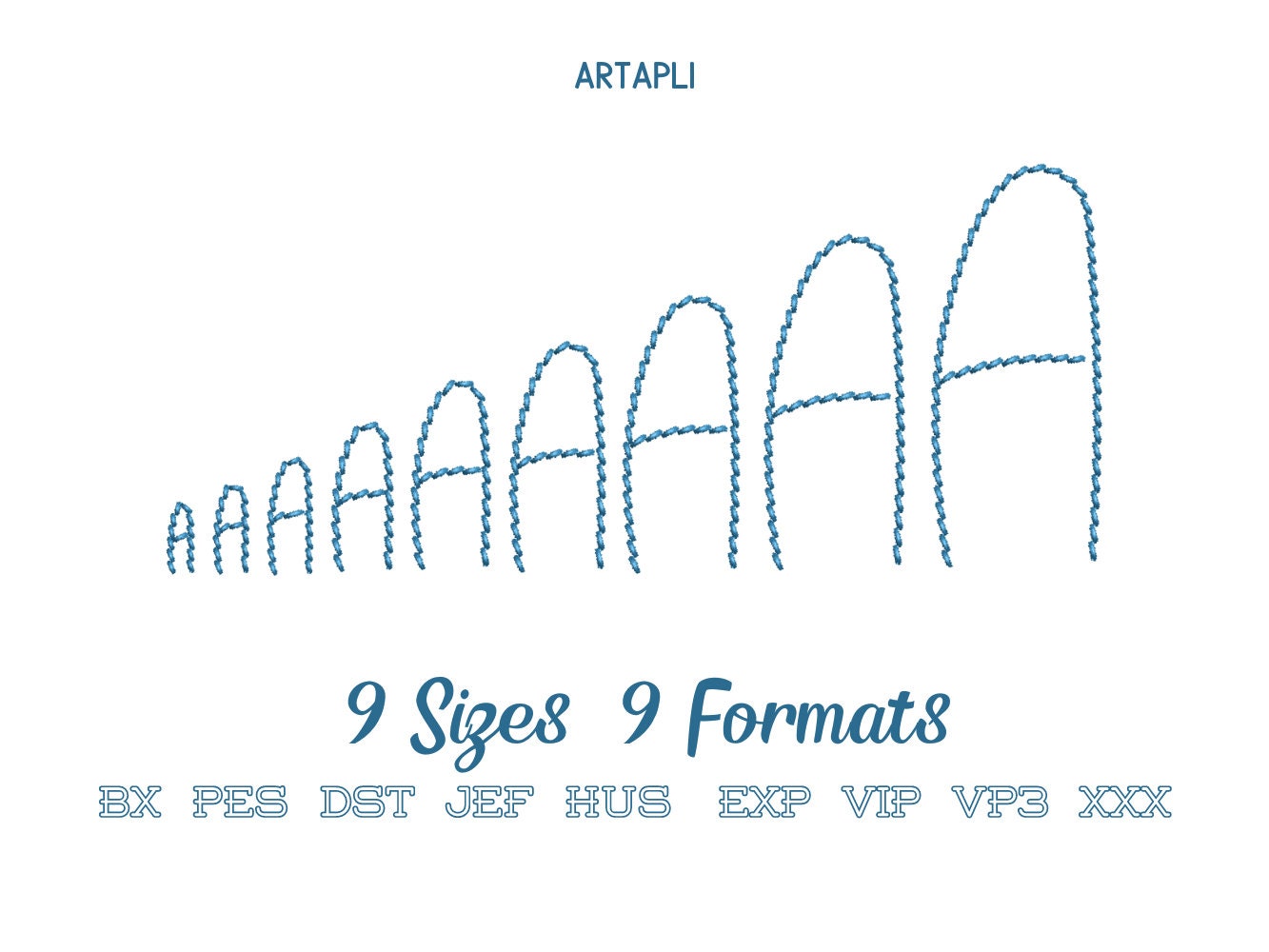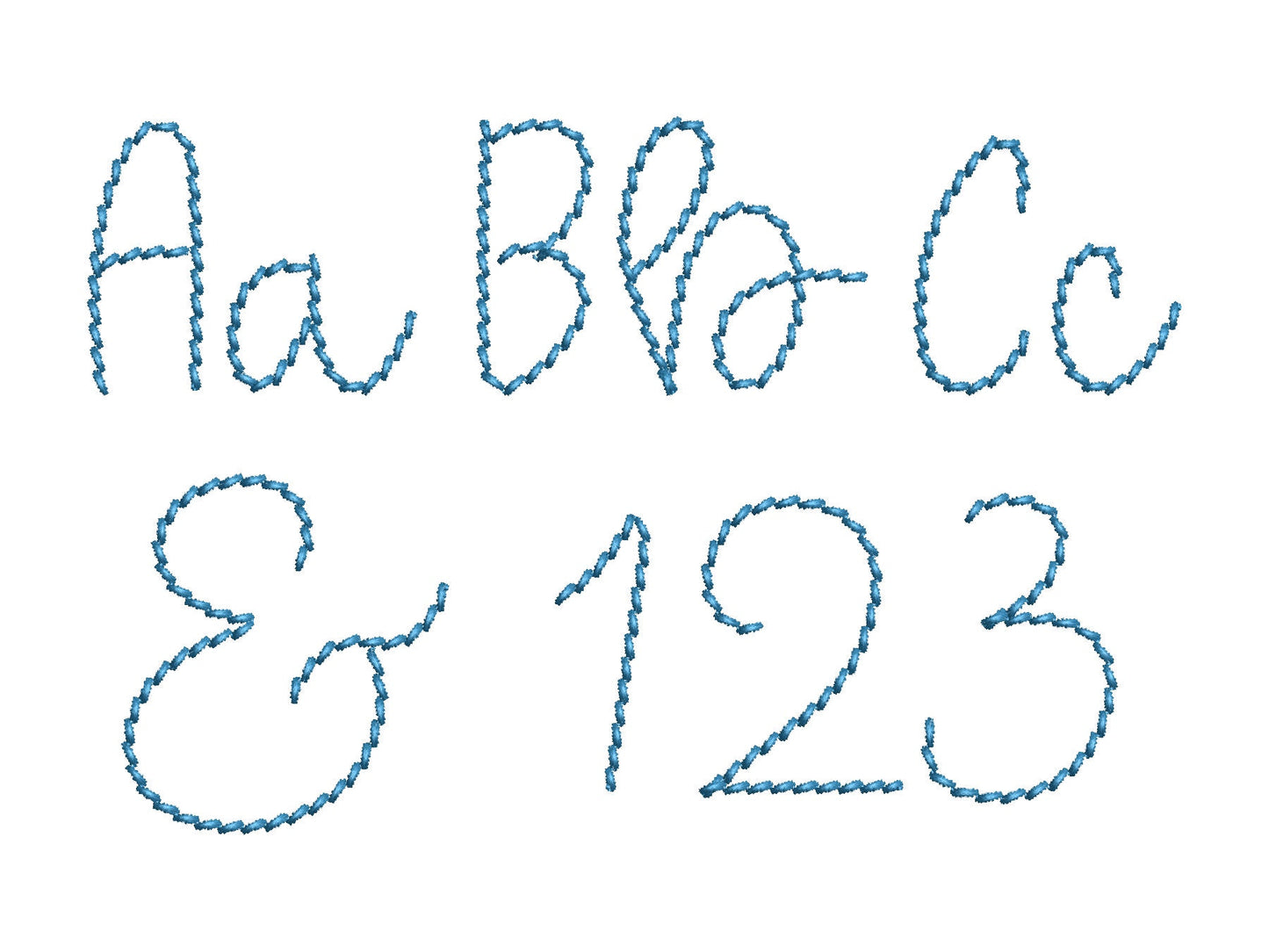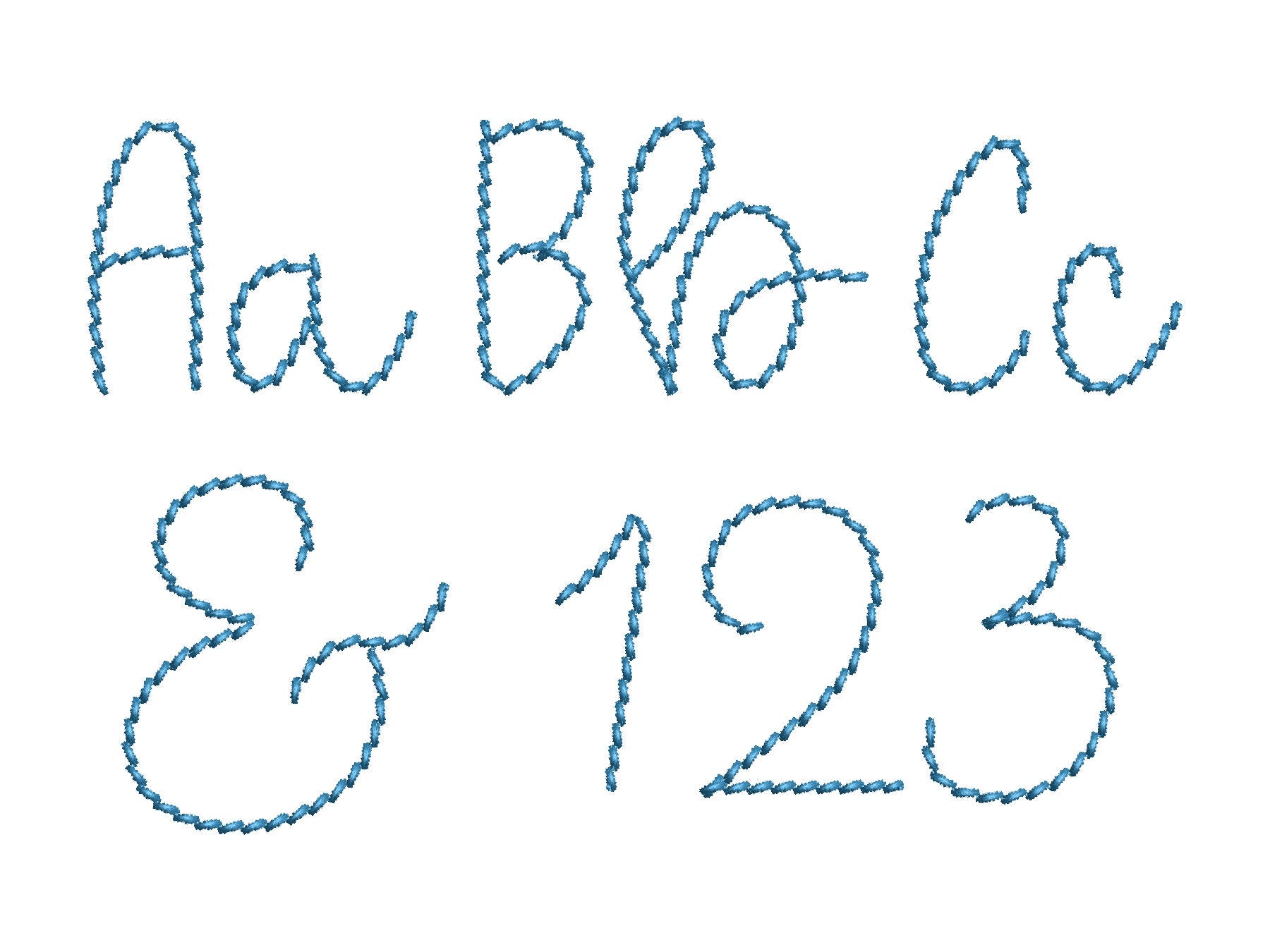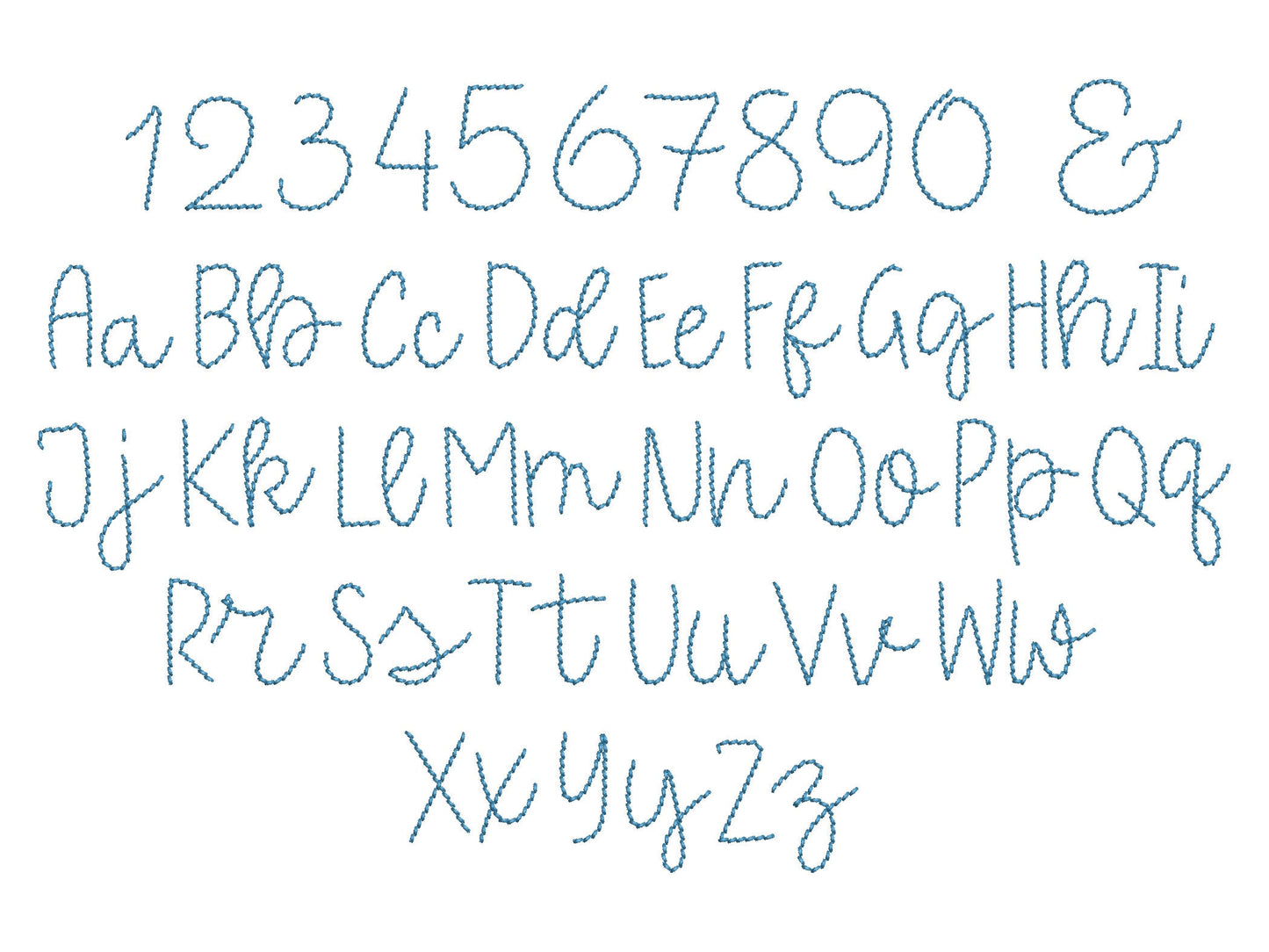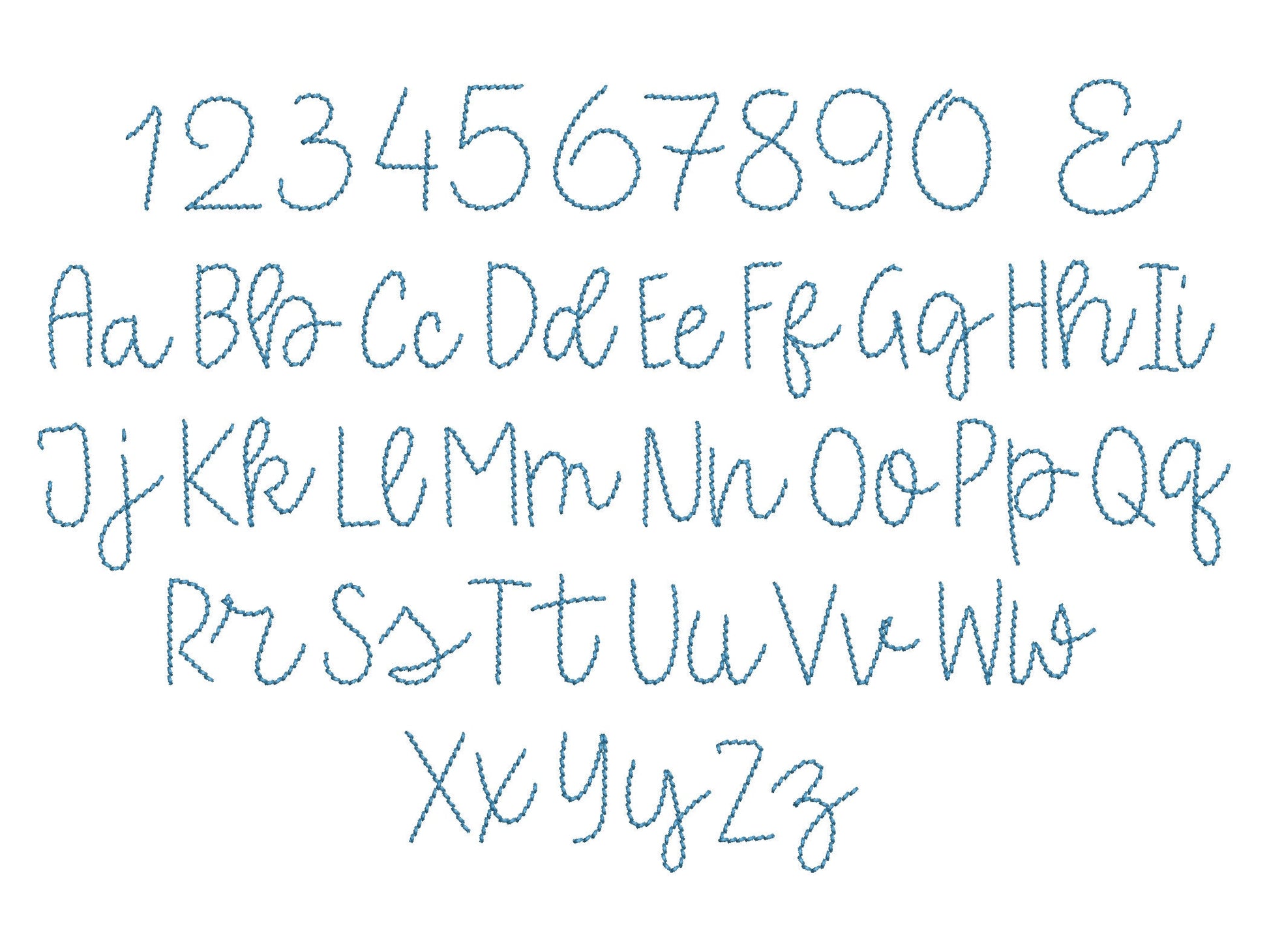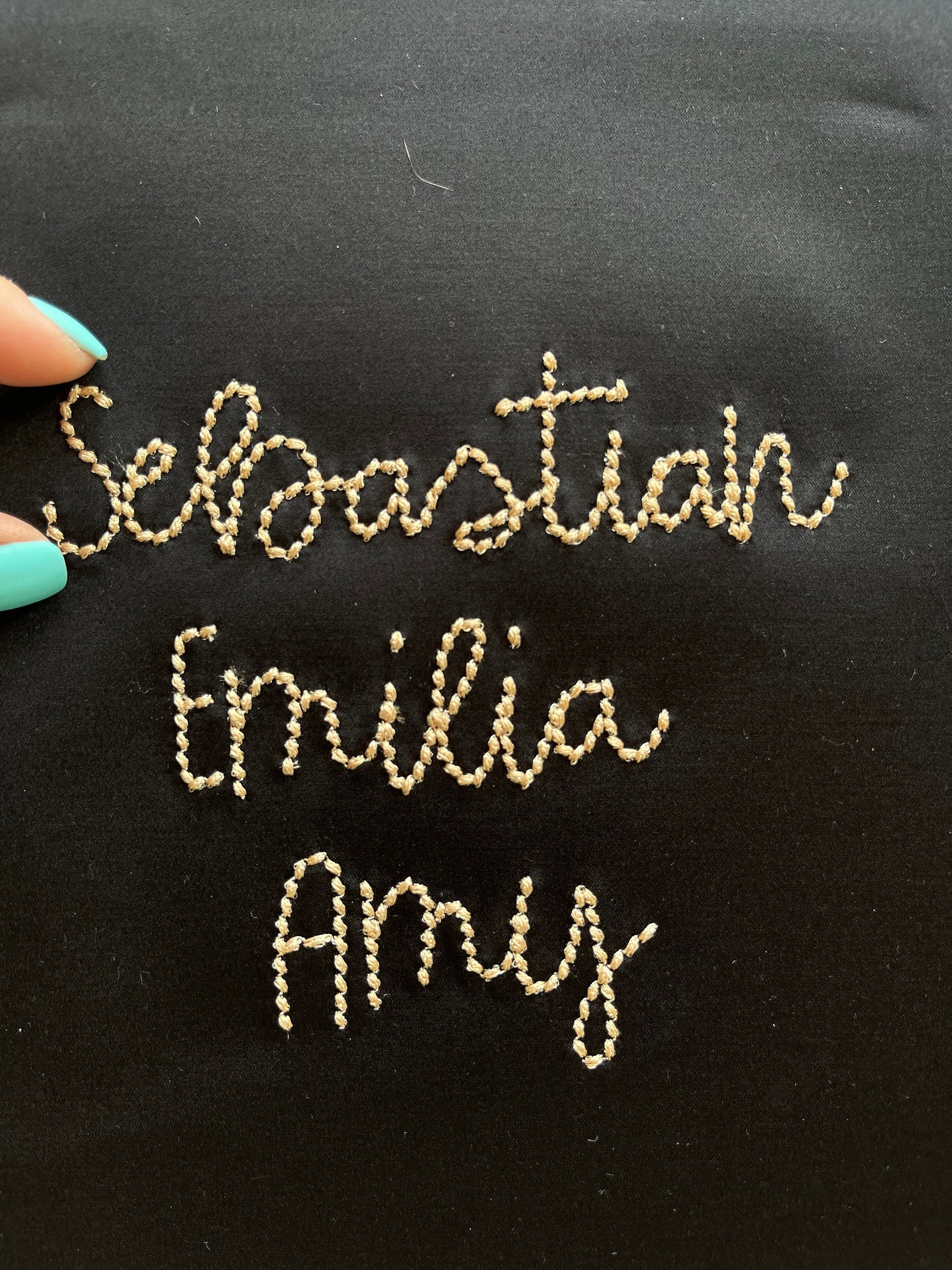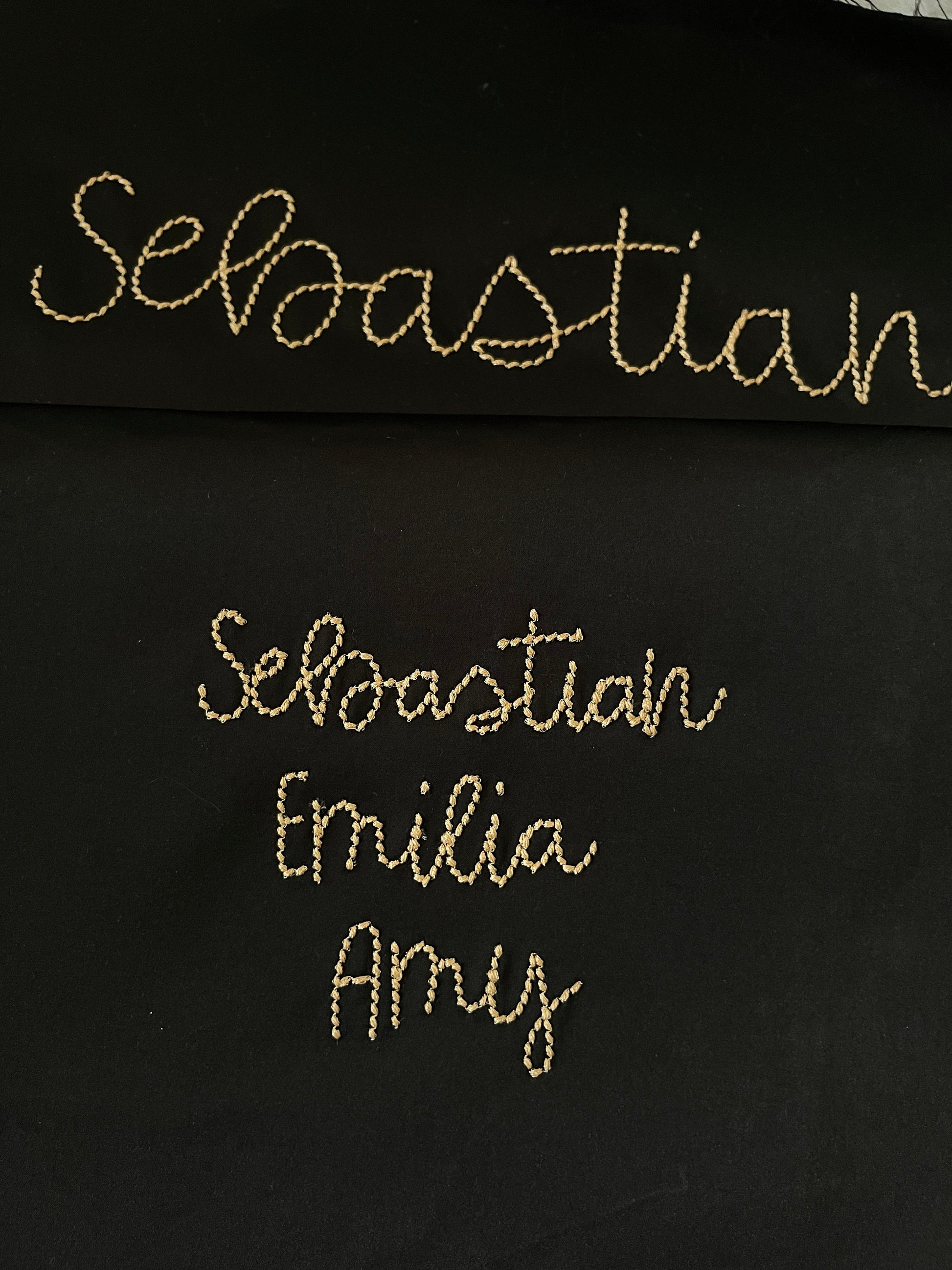
Or click to open the linkA hand stitch effect script in step stitch, for kids' names and sayings along necklines, on shirts and pillows.
Uppercase and lowercase letters, numbers and an ampersand in nine sizes: 0.6, 0.9, 1.1, 1.4, 1.8, 2.2, 2.6, 3.1 and 3.8 inches.